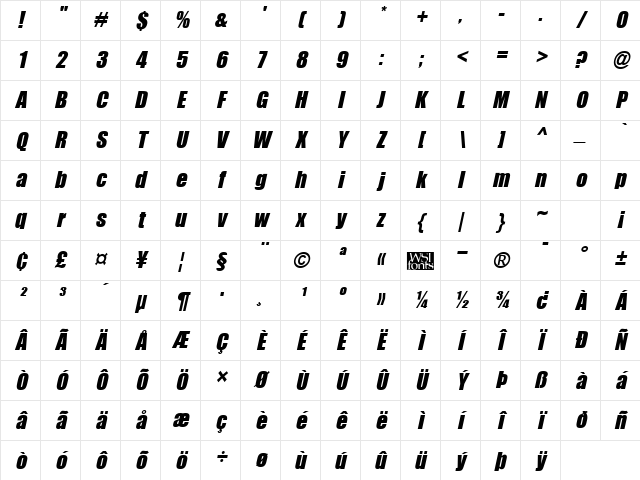
Billboard Italic Free Font
Billboard Italic
Billboard Family
Billboard Italic
Design Context for Billboard
Billboard is a composed and adaptable typeface that performs quietly and consistently across a wide range of design contexts. The slanted form adds forward momentum and visual energy.
Pro Tip: Use Billboard for emphasis, pull quotes, and subheadings where its slanted energy can add rhythm to the layout.